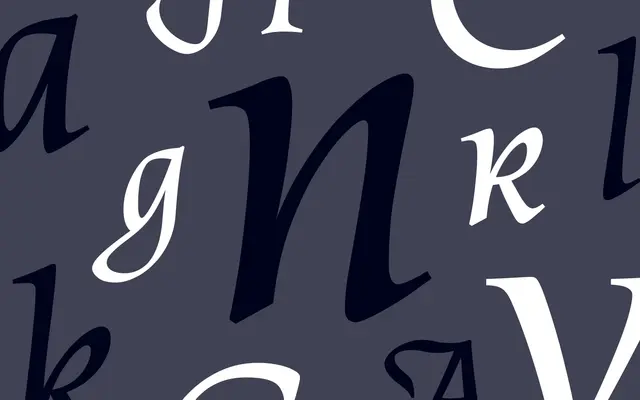
Census
Dalton Maag · Ben Jones · 2024
Census specimen from Dalton Maag
A broad-nibbed formal script by Ben Jones with a Cap Height axis, swash capitals and uncial alternates, awarded by Communication Arts and shortlisted at D&AD.
A broad-nibbed formal script by Ben Jones intended for display and era-specific text, with a single variable italic weight that flexes through an unusual Cap Height axis. Swash capitals and uncial lowercase alternates extend its range across editorial, packaging and identity work that wants a heritage voice without slipping into pastiche. Picked up a Communication Arts Award of Excellence and a D&AD Awards shortlist.
Dalton Maag describe Census as an evocative broad-nibbed formal script for display and era-specific text, offering a single variable italic with a Cap Height axis, swash capitals and uncial lowercase alternates.
Regular Italic
Cap Height: Small to Tall